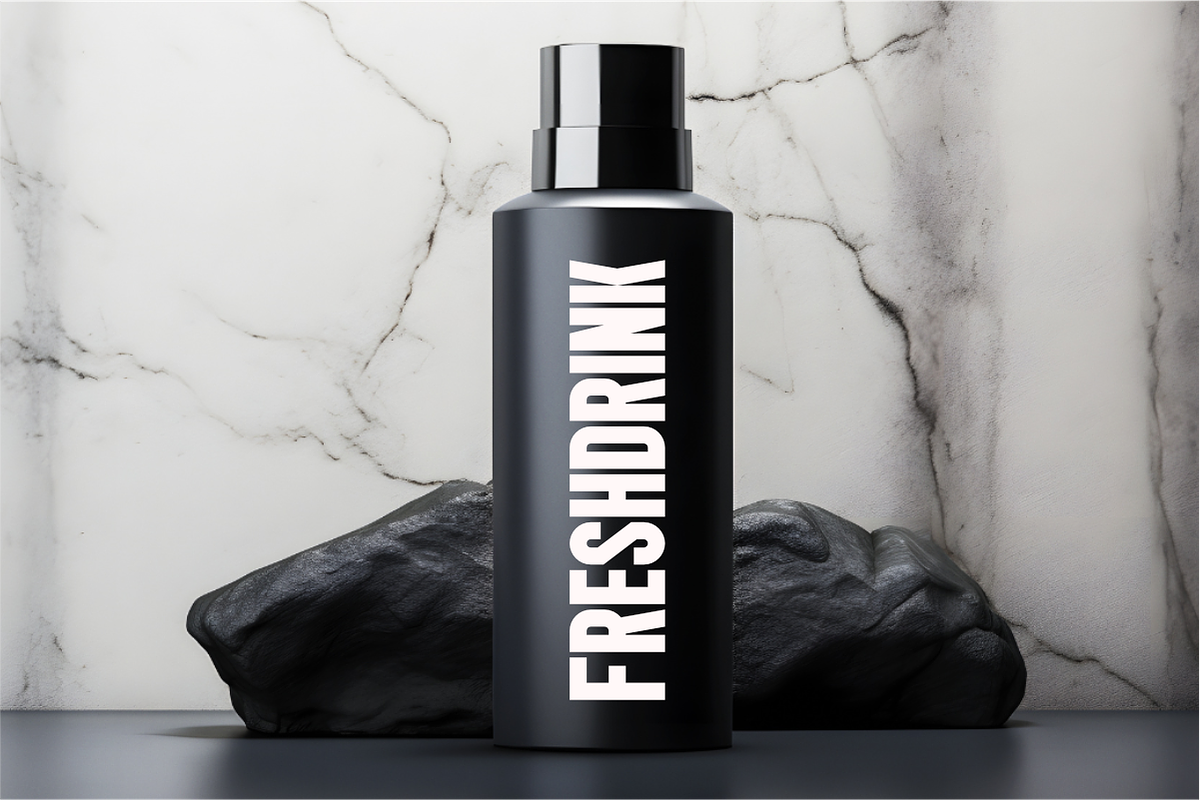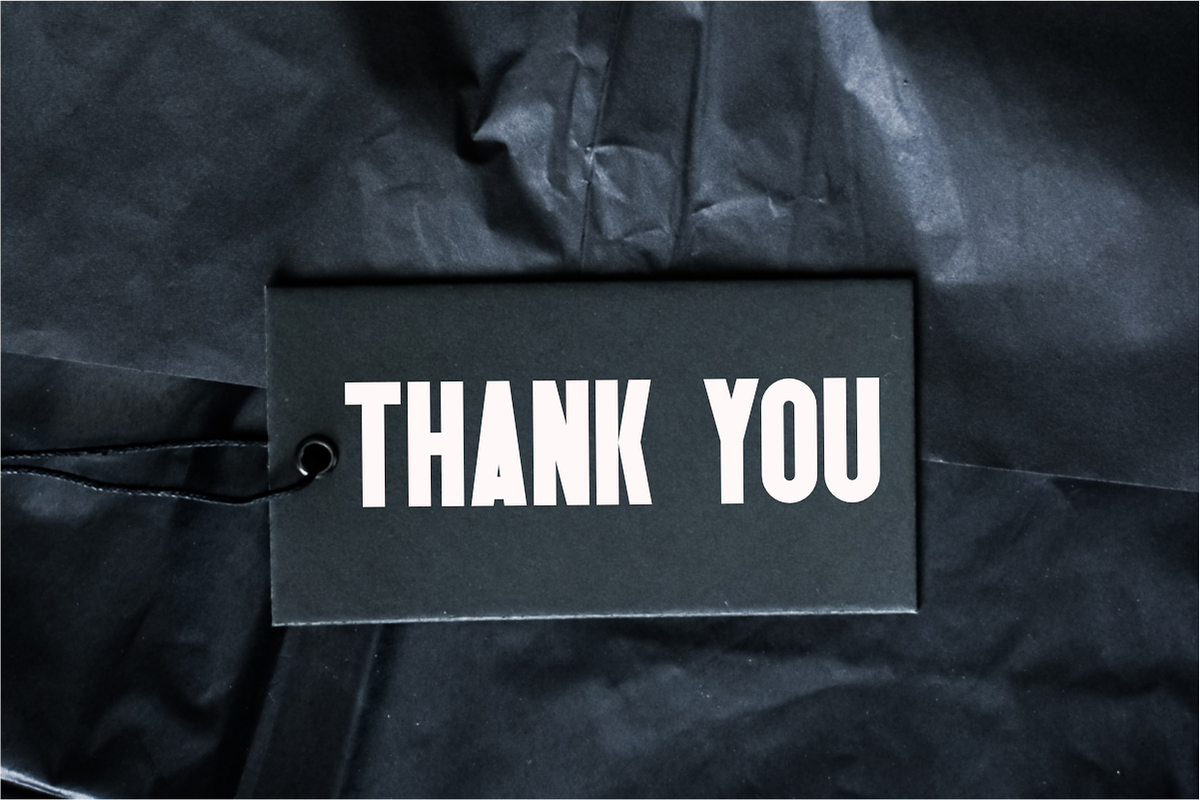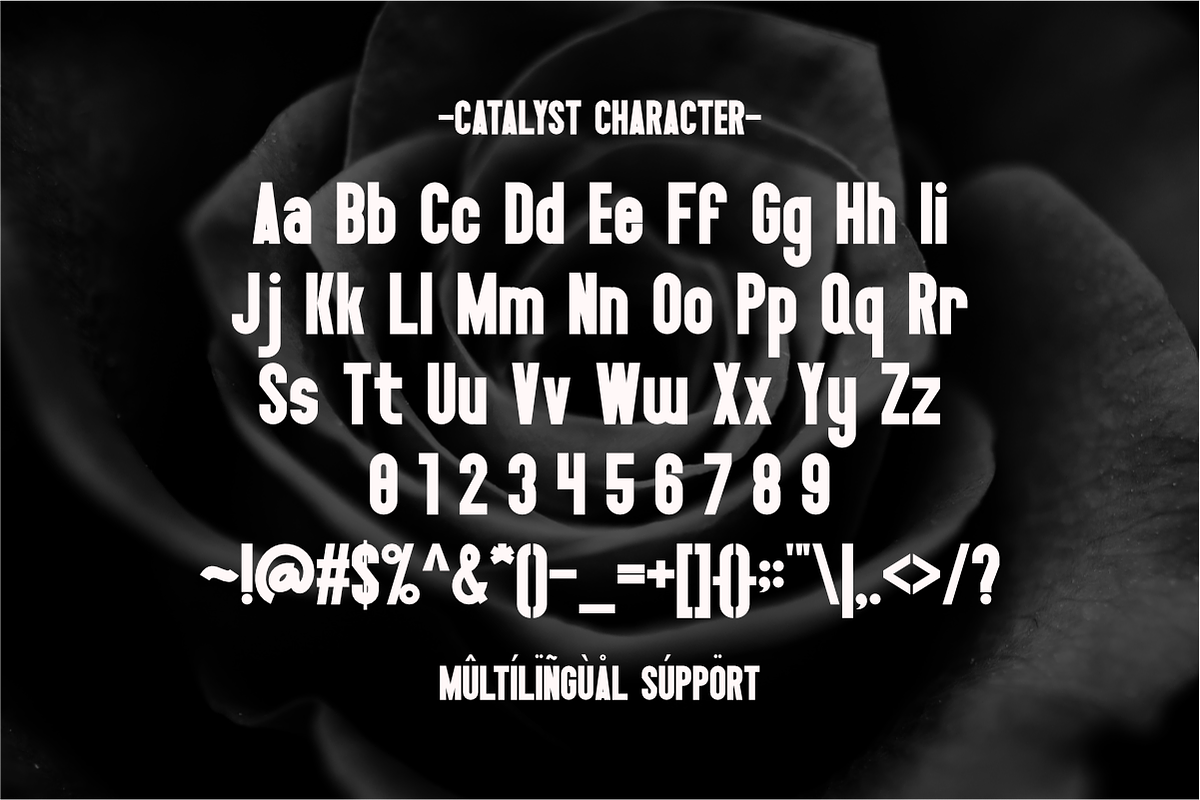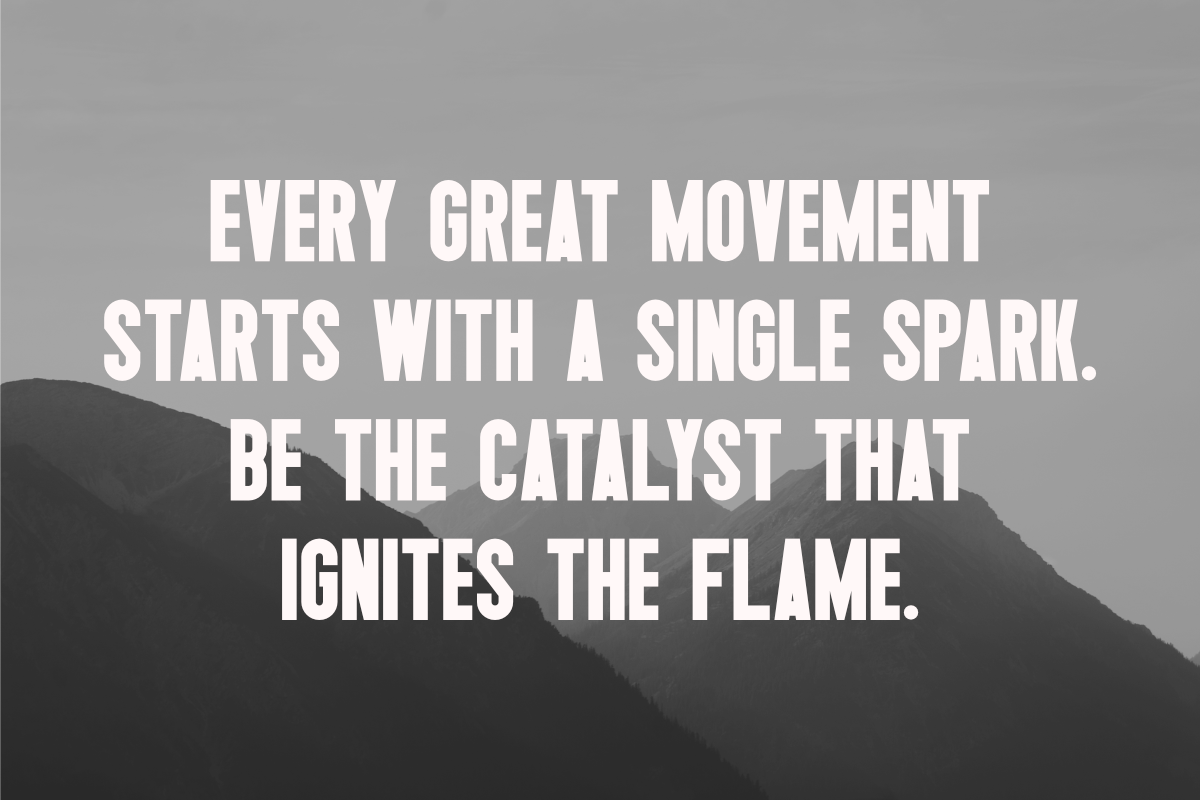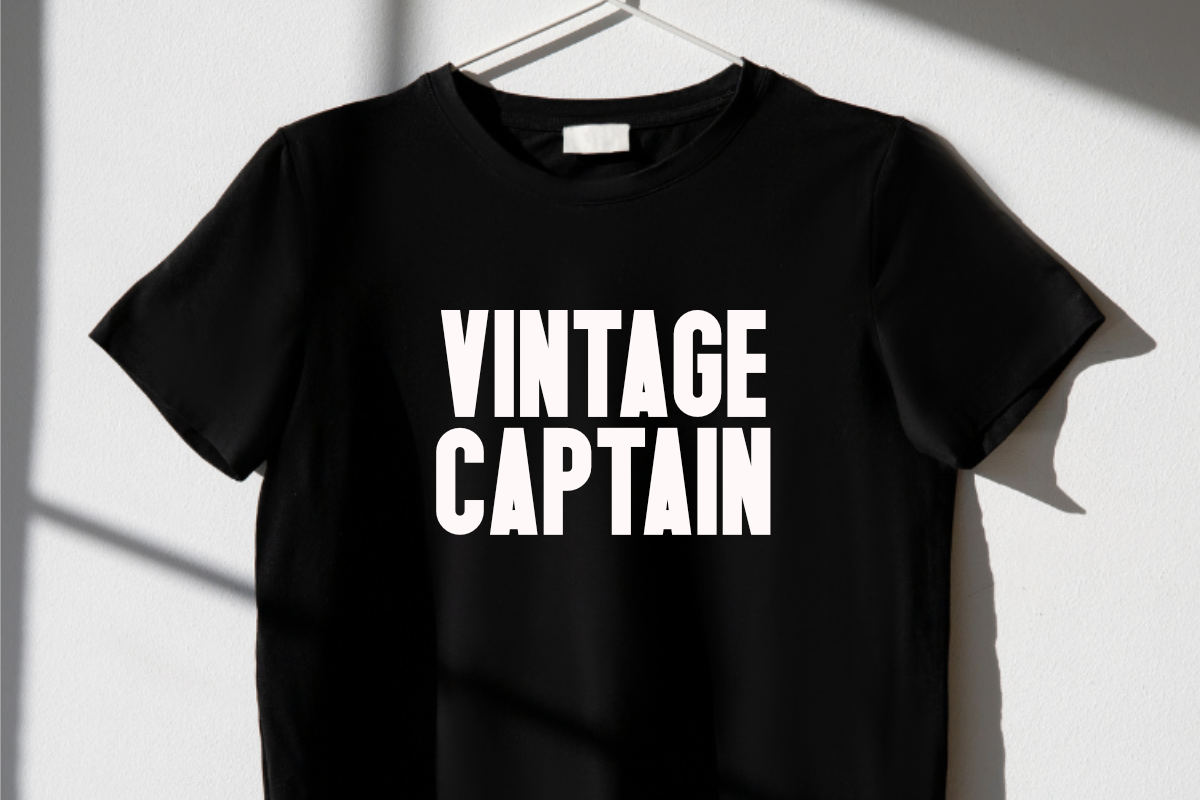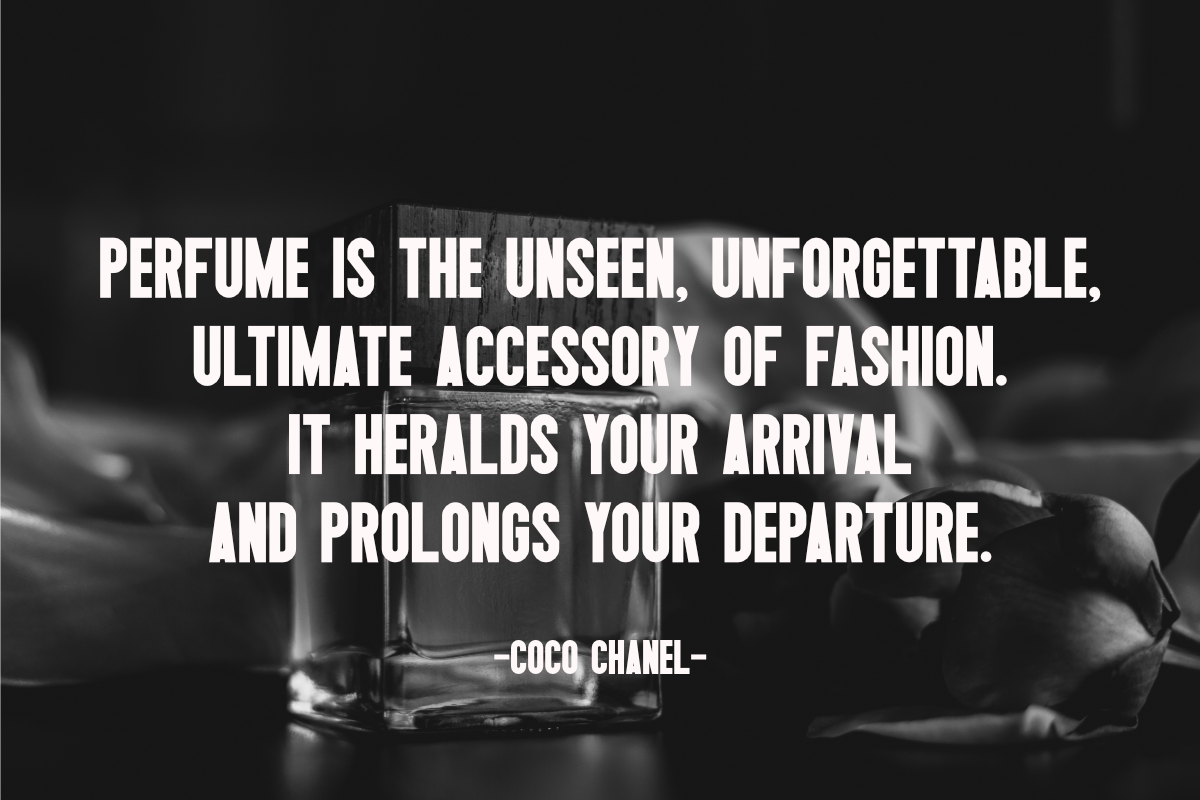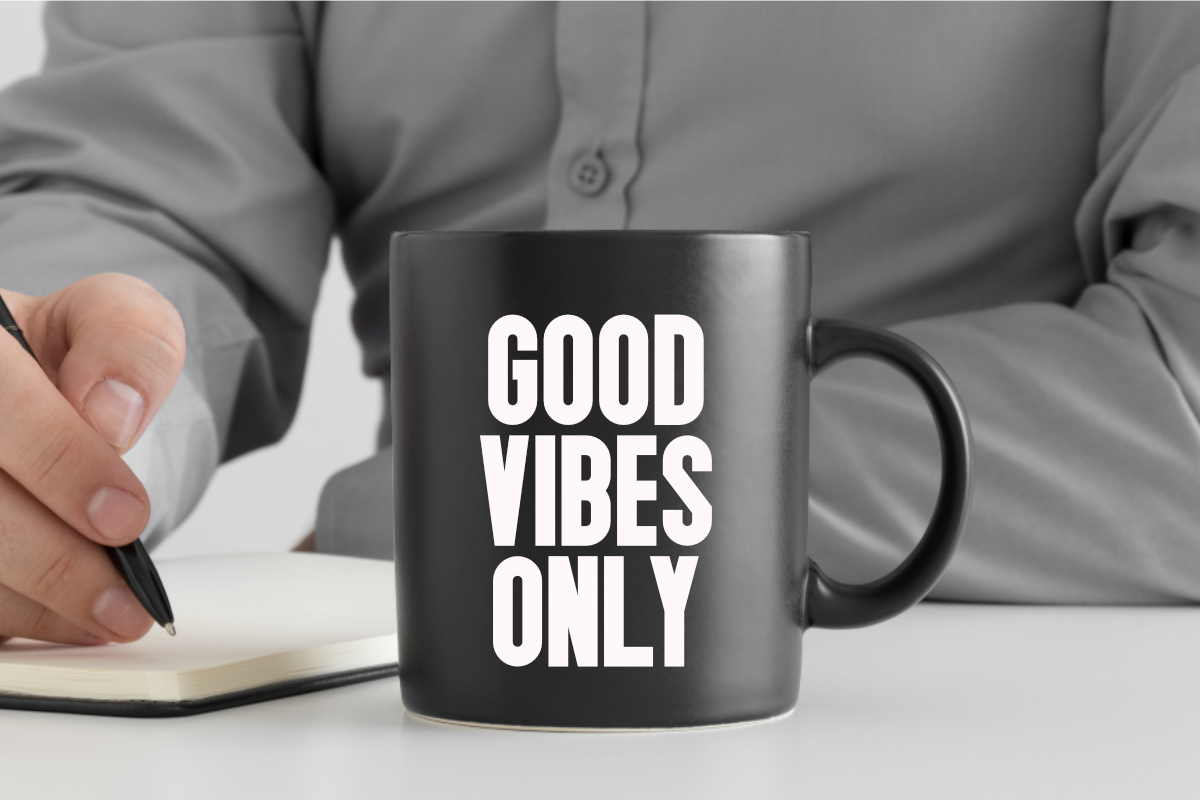
Catalyst - Condensed Sans Serif
Catalyst is a bold and condensed sans serif font designed for modern impact. Its strong, condensed form makes it perfect for headlines, apparel mockups, and magazine layout, delivering a powerful and contemporary aesthetic.